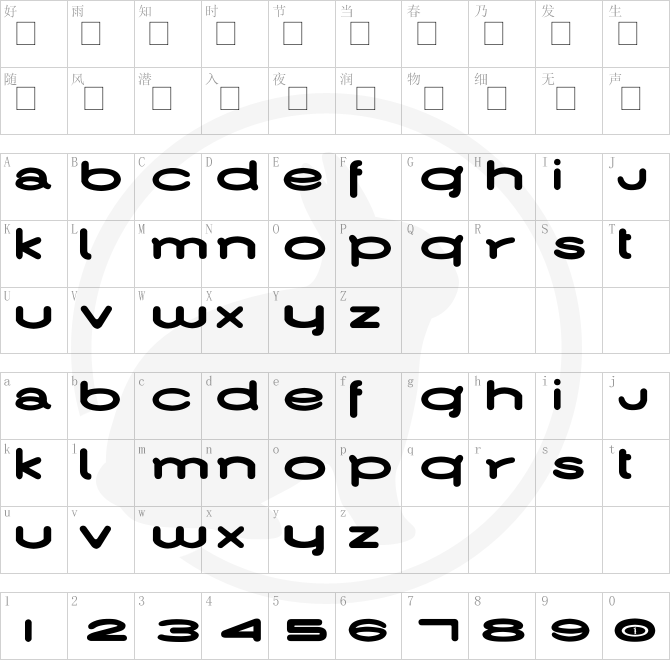
- Font Name:! Jamiroquai !
!-Jamiroquai-!.ttf is a very beautiful artistic font, !-Jamiroquai-!.ttf is widely used in the design and printing of various books and pictures,!-Jamiroquai-!.ttf has a strong visual impact,!-Jamiroquai-!.ttf is a commonly used font in newspapers, magazines and books, and is used in posters, e-commerce Poster design, store design, logo design, font design and other fields.!-Jamiroquai-!.